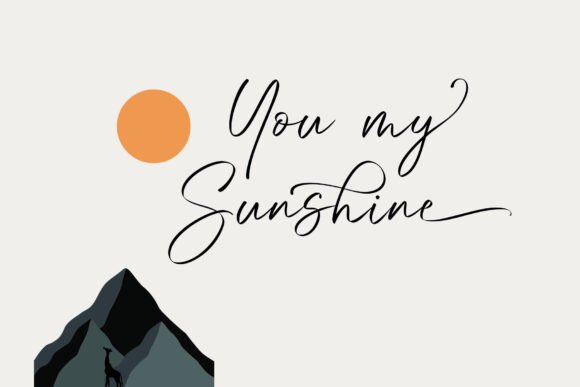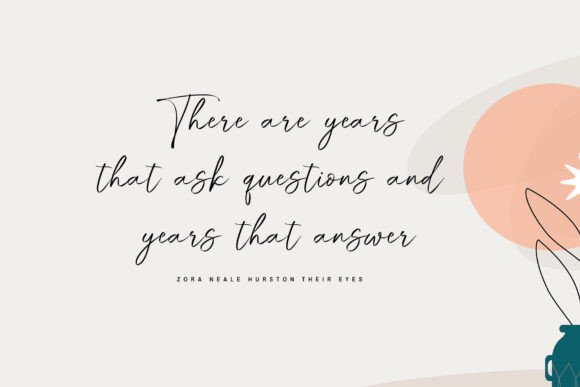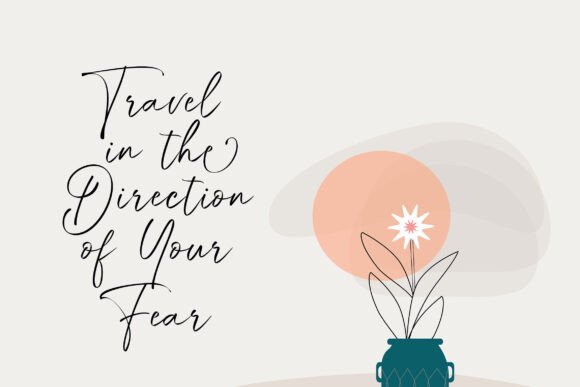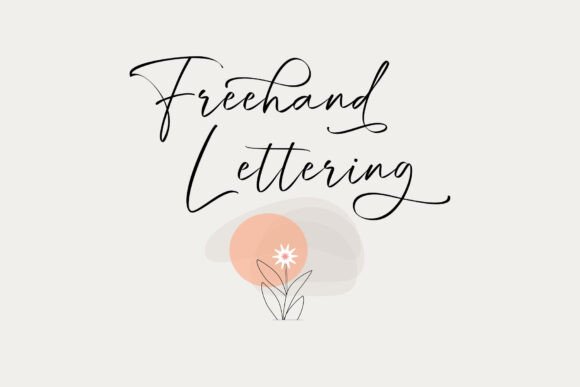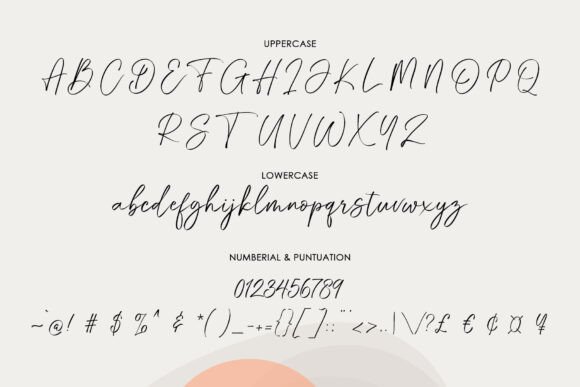
Discover the Elegance of Fountain Font: Elevate Your Designs with Sophistication
In the realm of typography, a font can make or break a design. It’s the subtle nuances and distinctive characteristics of a typeface that can transform a mundane project into a masterpiece. If you’re on the hunt for a font that exudes elegance, sophistication, and a dash of creativity, look no further than the Fountain Font. This dazzling script font is meticulously crafted with intricate details that are sure to elevate your designs to new heights.
The Charm of Fountain Font
Fountain Font is a stylish typeface that boasts an array of OpenType features, including ligatures, stylistic alternatives, and style sets. These features allow designers to add a personal touch to their work, creating unique and captivating visuals that capture the essence of their message. Whether you’re working on a branding project, a wedding invitation, or a packaging design, Fountain Font is the perfect addition to your font library.
What Makes Fountain Font Stand Out?
- Intricate Details: Fountain Font is meticulously crafted with attention to detail, ensuring that every letter and swash is a work of art.
- Elegant Ligatures: The font features elegant ligatures that seamlessly connect letters, creating a fluid and natural look.
- Stylistic Alternatives: With stylistic alternatives, you can experiment with different styles to find the perfect fit for your design.
- Style Sets: The font’s style sets allow you to mix and match different letterforms, creating a unique visual identity.
Fountain Font is a dazzling script font that is sure to elevate your designs to new heights. With its intricate details, elegant ligatures, and stylistic alternatives, this font is a must-have for any designer or crafter. Whether you’re working on a branding project, a wedding invitation, or a packaging design, Fountain Font is the perfect addition to your font library. So why wait? Introduce Fountain Font to your design arsenal today and discover a world of elegance and sophistication.